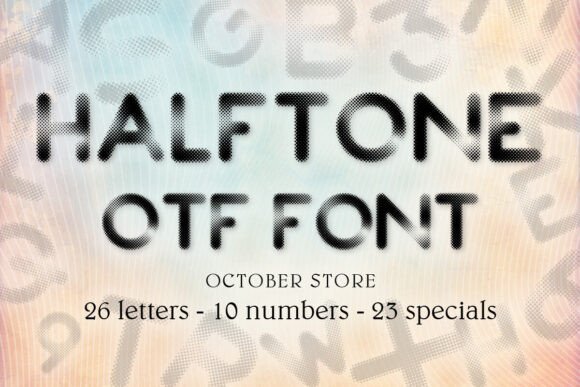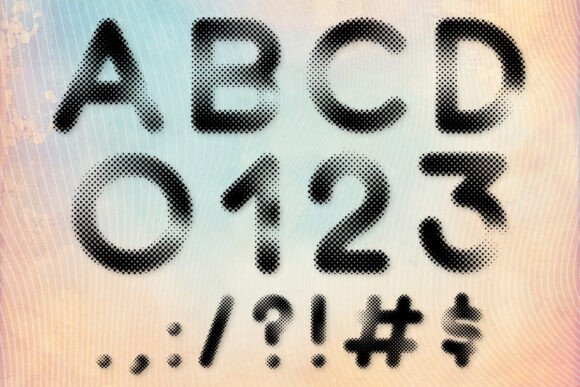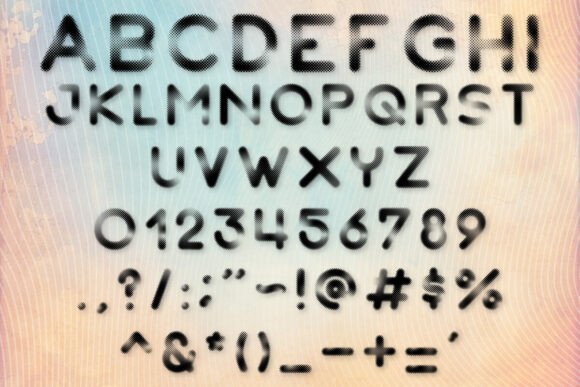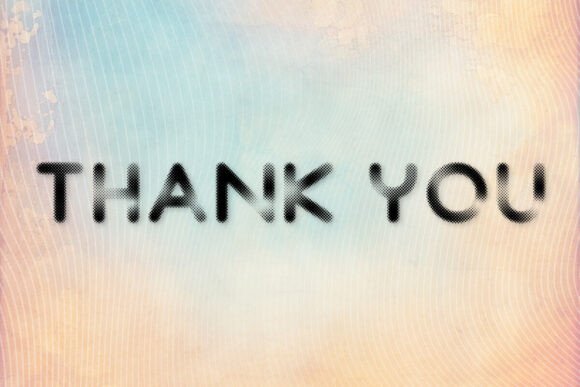
Unlock the Power of Storytelling with the Halftone Alphabet Font
As a designer, have you ever stared at a blank canvas, eager to bring a concept to life? The blank page can be intimidating, but it’s also an opportunity to unleash your creativity. The perfect starting point is a well-chosen font, one that speaks to your audience and sets the tone for your design.
That’s where the Halftone Alphabet Font comes in – a beautifully crafted ensemble designed to elevate your design projects. With 59 unique characters at your disposal, you’ll have the flexibility to express yourself in a way that’s both timeless and trendy. Whether you’re working on a logo, poster, or magazine spread, the Halftone Font is the perfect choice for adding a touch of sophistication and personality.
- Unique Characteristics: Features a distinctive halftone pattern, creating a unique aesthetic that adds texture and visual interest to designs.
- Legibility: Designed to be highly legible, even at small font sizes, making it suitable for a wide range of applications, including body text and headings.
- Customization: Allows for customization of the halftone pattern, enabling users to adjust the density, size, and color of the pattern to suit their design needs.
Halftone Font Review
Overall, I’m quite impressed with the Halftone Font. It’s a beautiful, unique font that’s perfect for adding some visual interest to your designs. ✨ Here are some of its strengths:
- Customizable: The font comes in a variety of styles and sizes, making it easy to customize to your needs.
- High-resolution: The font is designed to be high-resolution, ensuring that it looks crisp and clear even at larger sizes.
- Legible: Despite its unique design, the font remains legible, making it perfect for body text or headlines.
However, there are a few limitations to keep in mind: ⚠️
- Compatibility issues: Some users have reported compatibility issues with certain software or operating systems.
- Limited character set: The font’s unique design means that it may not support all characters or languages.
- Overuse: With its distinctive design, it’s easy to overuse the font, which can make your design look cluttered or overwhelming.
Overall, I think the Halftone Font is a great choice for designers looking to add some visual interest to their work. With its customizable styles and high-resolution design, it’s a versatile and effective font. Just be sure to use it judiciously to avoid overuse and ensure the best results.
Halftone Font is perfect for adding a retro or vintage touch to your designs. Some common use cases include:
- Posters and flyers for music events or concerts.
- Invitations and announcements for weddings or parties.
- Branding and packaging design for vintage or retro-themed products.